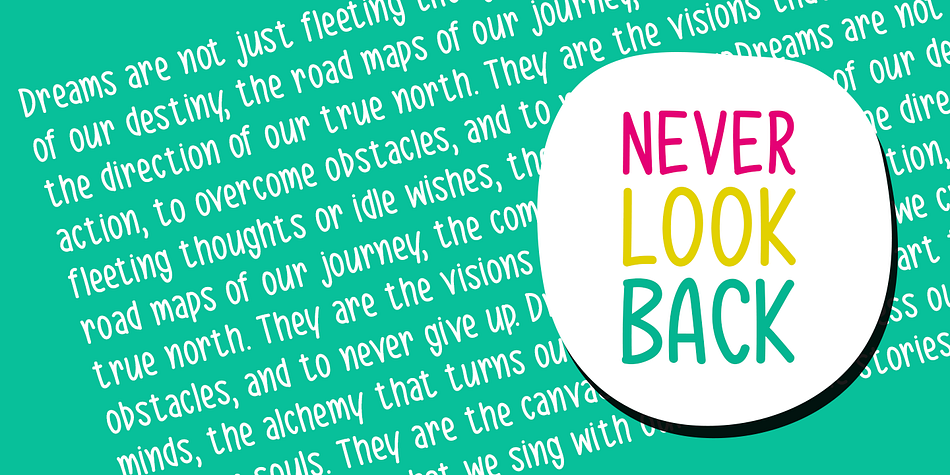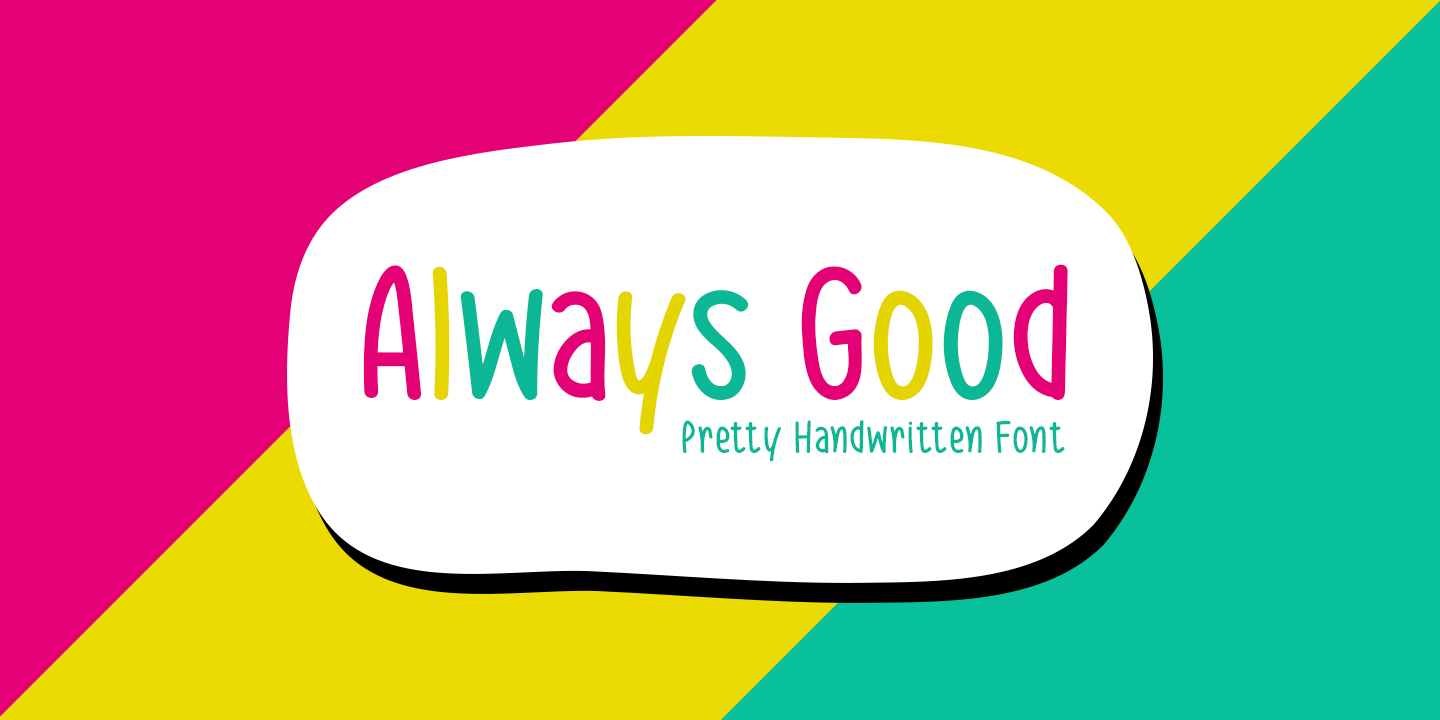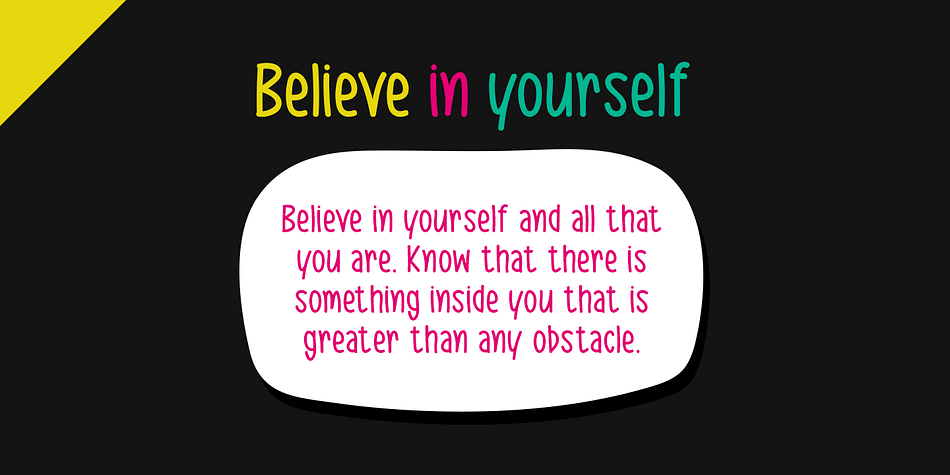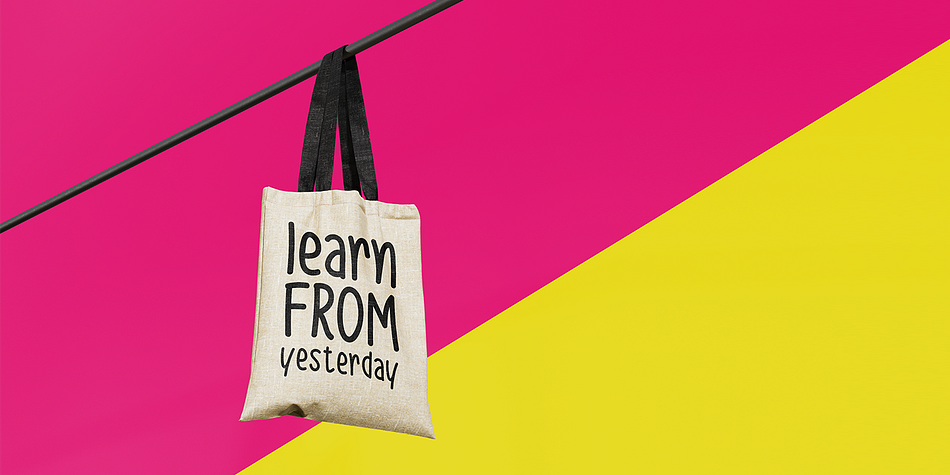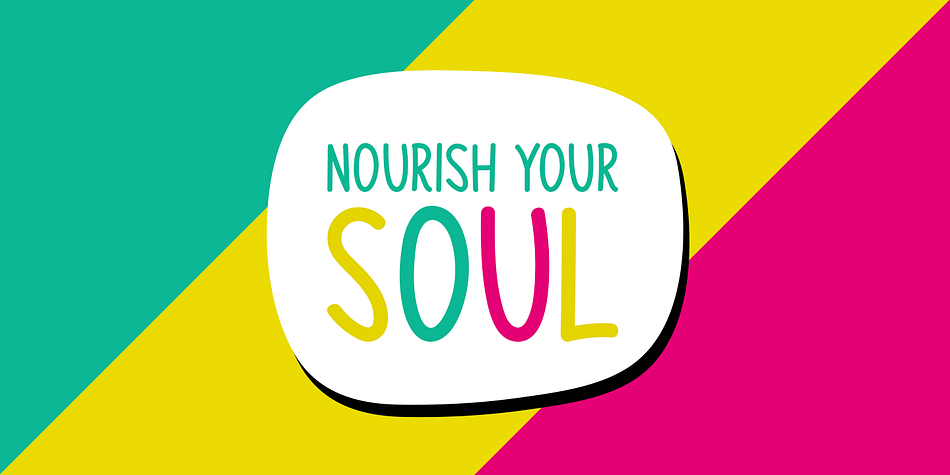
Always Good
Designed by Md. Shohail Bhuiyan, Always Good is a hand drawn and kids font family published by Seemly Fonts.
Always Good is a brand new handwritten font perfectly suited for stationery, logos, t-shirts, paper, print design, website headers, photo frames, flyers, music covers, posters, image sliders, and more.